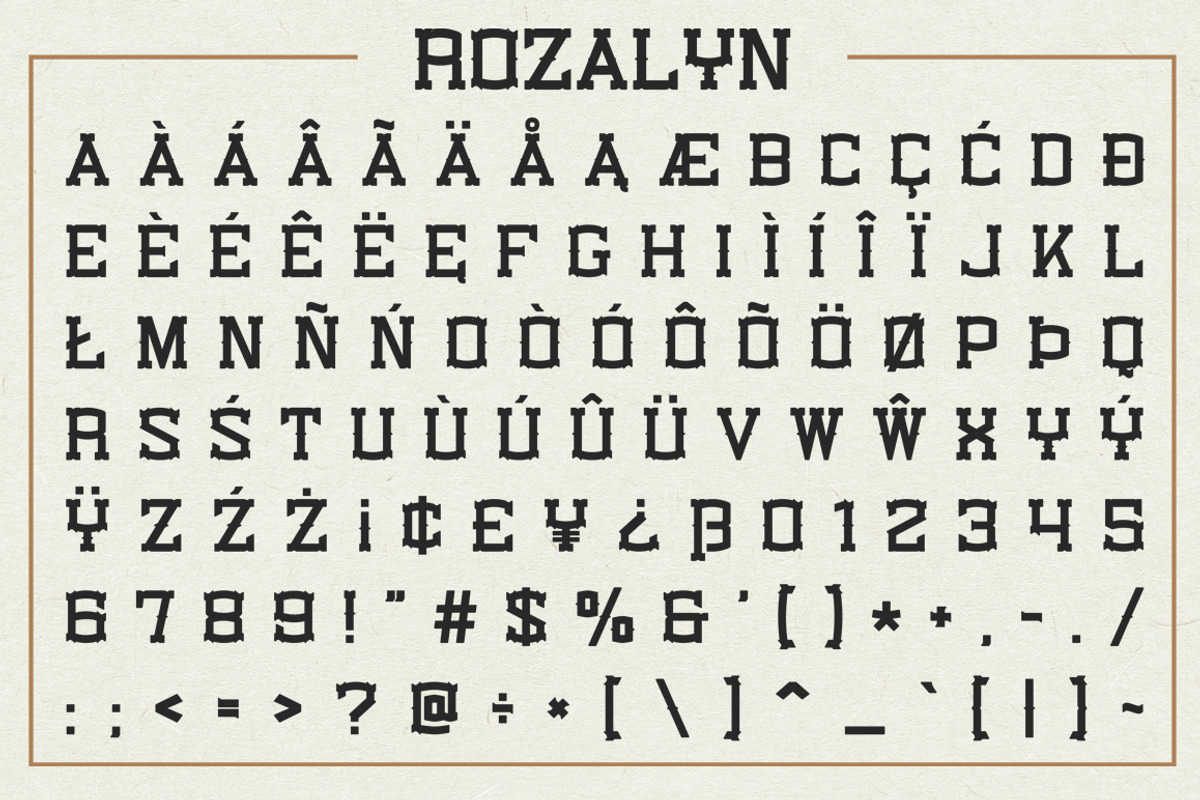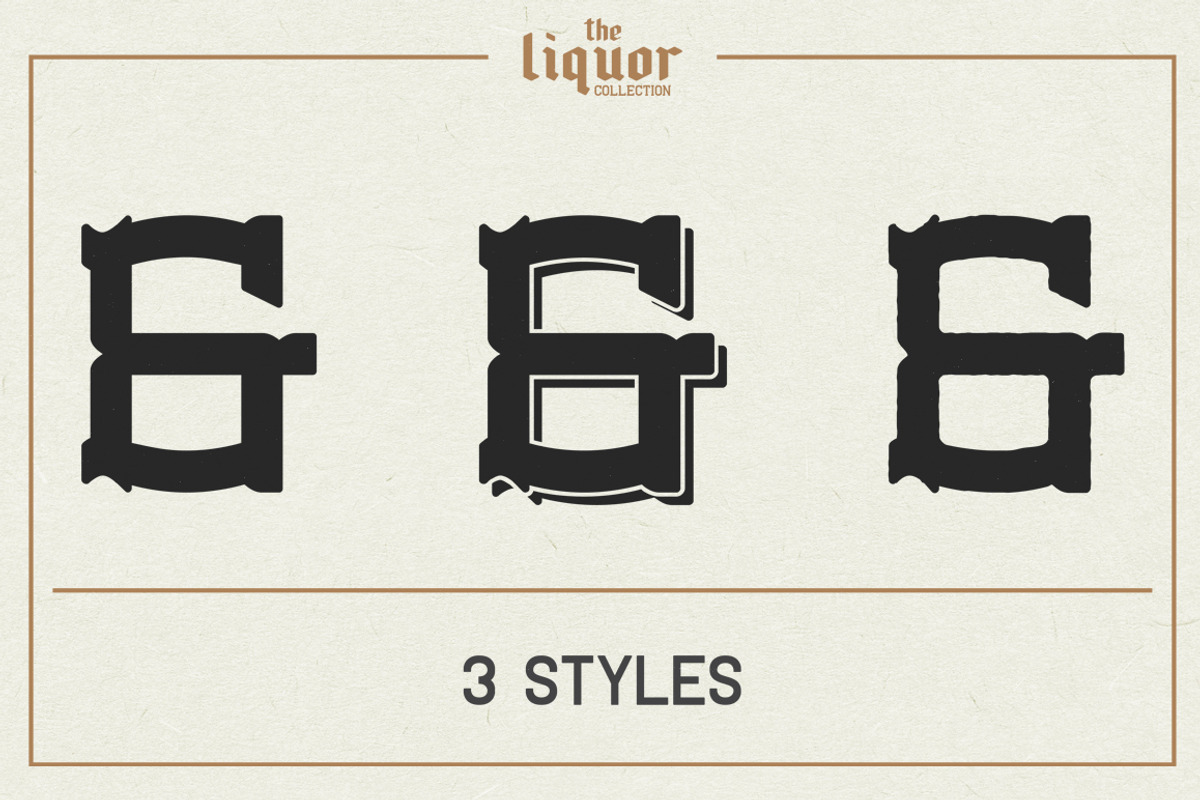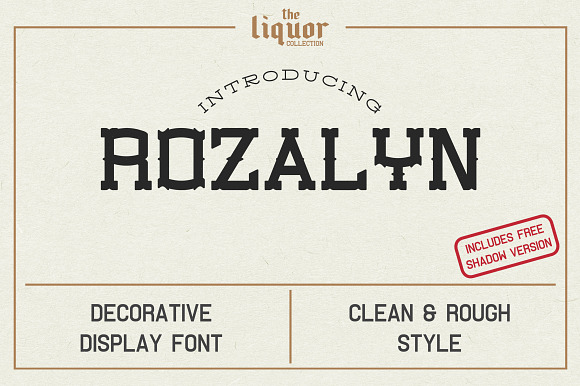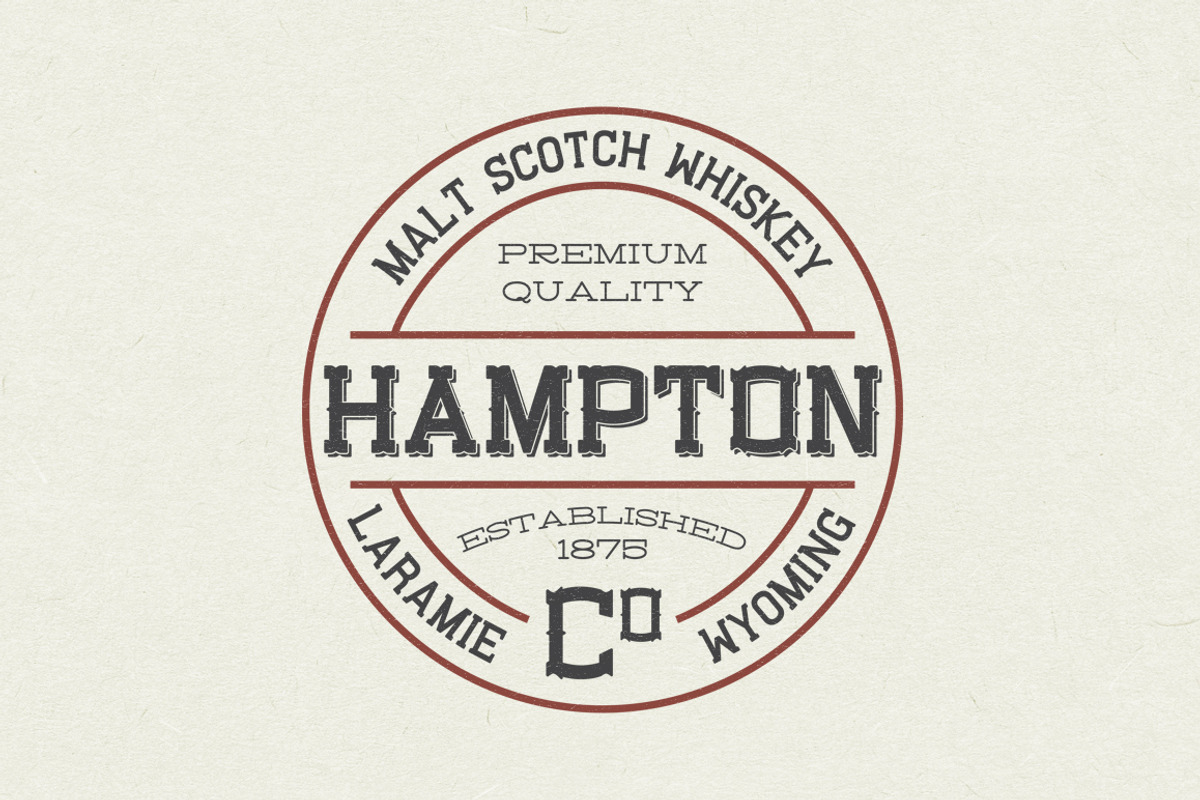
Rozalyn Font
Rozalyn Typeface is a part of "The Liquor Collection". Rozalyn is a western decorative font inspired by retro liquor labels and posters. Font is great for logos, labels, packaging and posters design.
- Rozalyn Shadow contains only basic letters, numerics and punctuation.
- Rozalyn Regular
- RozalynRough Regular
Why Rozalyn Font is worth a look
Rozalyn Font by Bart Wesolek fits naturally into Branding, posters, packaging, typography.